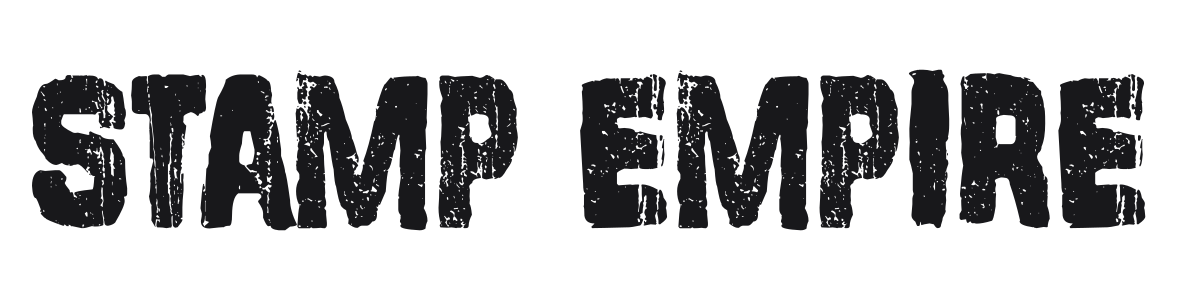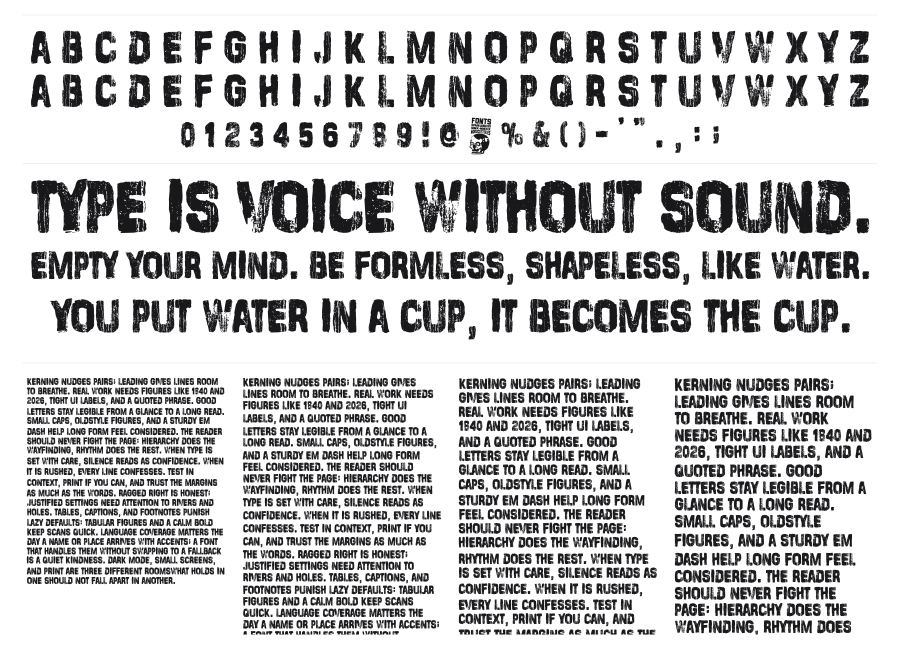
Stamp Empire
Stamp Empire is a heavy condensed display font built to look like ink dragged through a worn rubber stamp. Every character carries irregular breakup, ink erosion, and surface texture that sells the effect convincingly. It works for posters, labels, band merchandise, and anywhere that needs visual weight with a battle-worn edge.